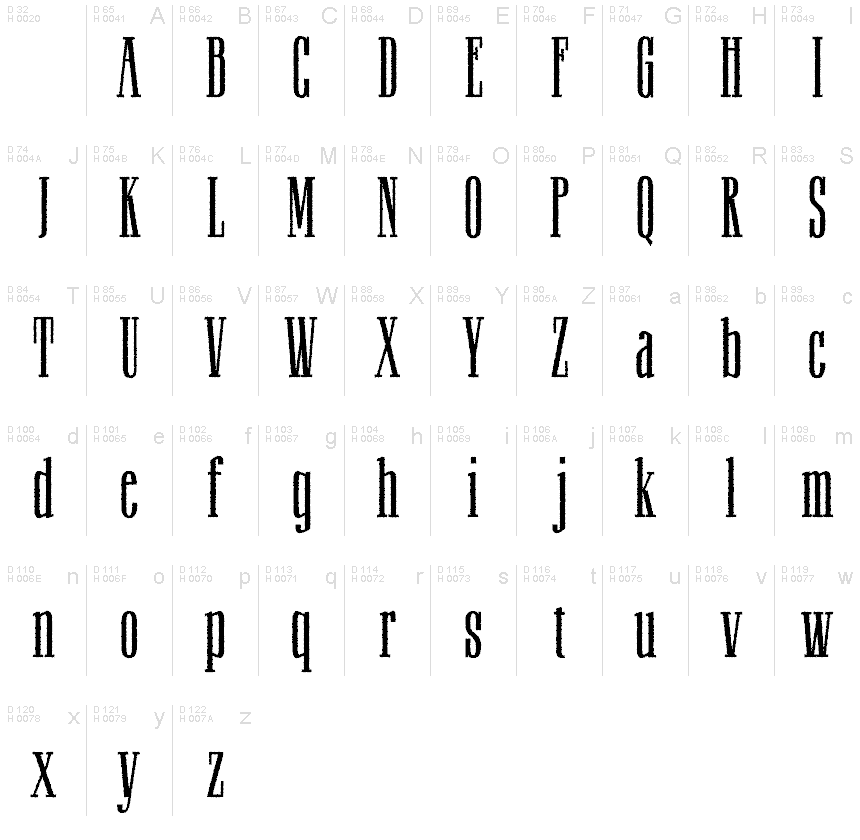
Railine Rough Demo Regular
Railine Rough font by Craft Supply Co is a condensed display typeface with eroded serifs and a rough texture. Having a vintage aesthetic that evokes woodblock printing and the tactile feel that comes with it, this font can provide an instant authentic and nostalgic touch to your design projects.